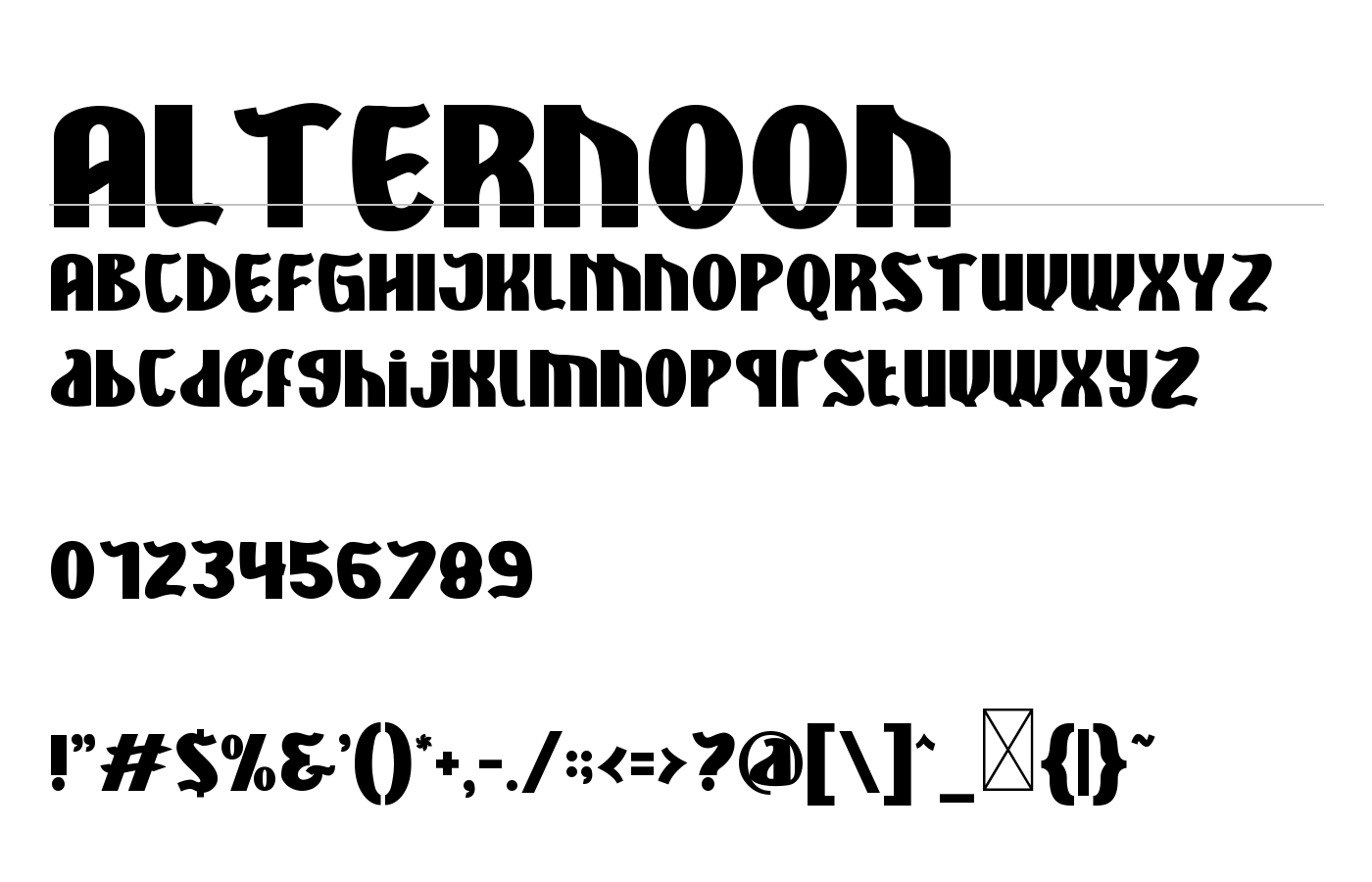
Alternoon is a bold, condensed serif font with a strong, vintage-inspired character that combines sharp angles and unique, quirky letterforms. Its high contrast and decorative details give it an artistic, retro feel perfect for eye-catching headlines, logos, and packaging that want to convey creativity and bold personality. This font works well in design projects aiming for a distinctive and playful yet elegant look.
ALTERNOON Font
About ALTERNOON Font